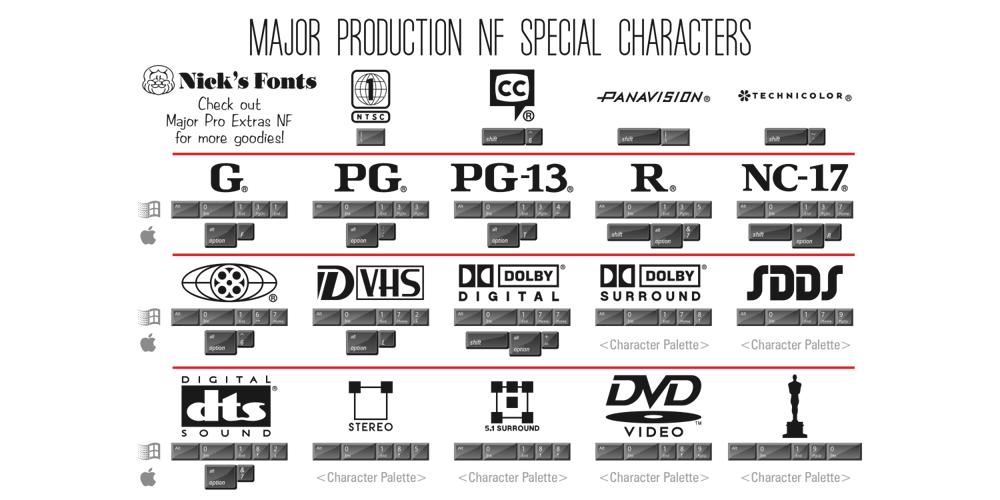
Major Production NF Font Family was designed by Nick Curtis and published by Nick’s Fonts. Major Production NF contains 1 styles and family package options. This typeface was designed specifically for producing movie posters, as well as VHS and DVD packaging for them. The uppercase letters are ultracondensed, and the lowercase letters are small caps, approximately a third the size of the uppercase. Also included are various logos and symbols suitable for the intended use, including those for MPAA ratings, and various audio and video formats. Both versions of this font include the complete Unicode Latin 1252 and Central European 1250 character sets.